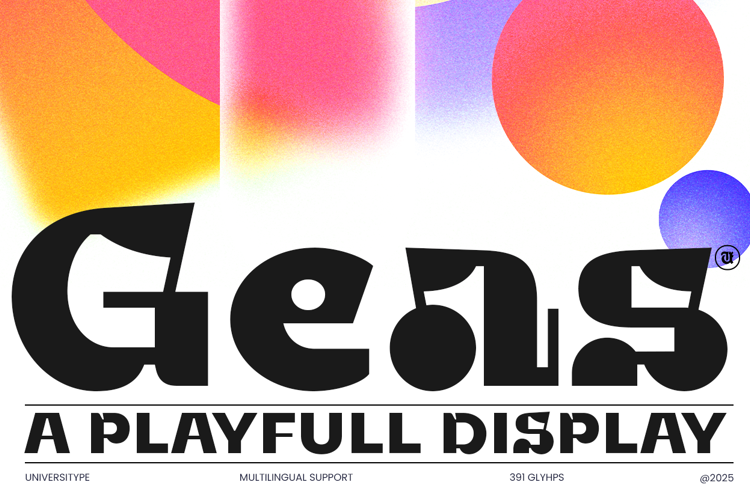
UT Geas Display Font
UT Geas isn’t just another font. It bounces, wiggles, and grins its way across the page. Bold yet friendly, retro yet refreshingly modern—it’s the kind of type that makes you pause, smile, and say, “Okay, that’s fun.”
Designed to bring energy to your layouts and joy to your readers, UT Geas is your creative sidekick for moments that need a bit more magic. Whether you’re crafting a loud-and-proud poster, a cheeky logo, or an Instagram post with personality, this font doesn’t just deliver a message—it throws a party around it.